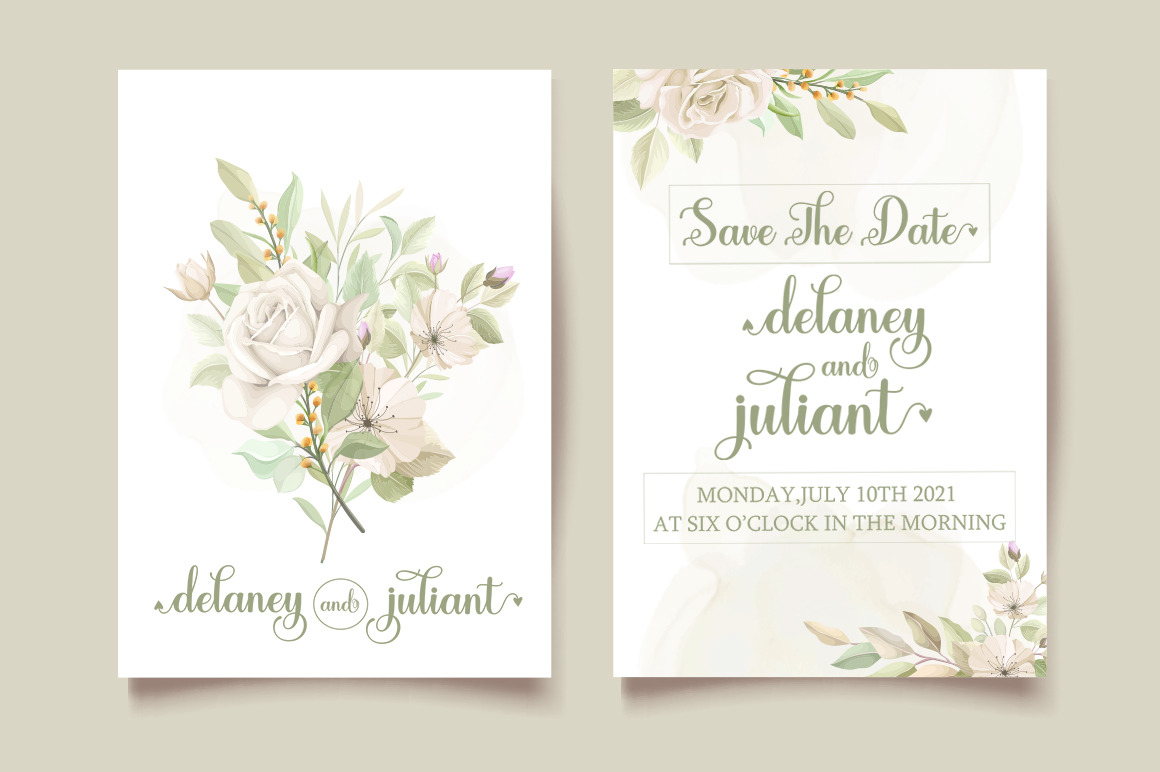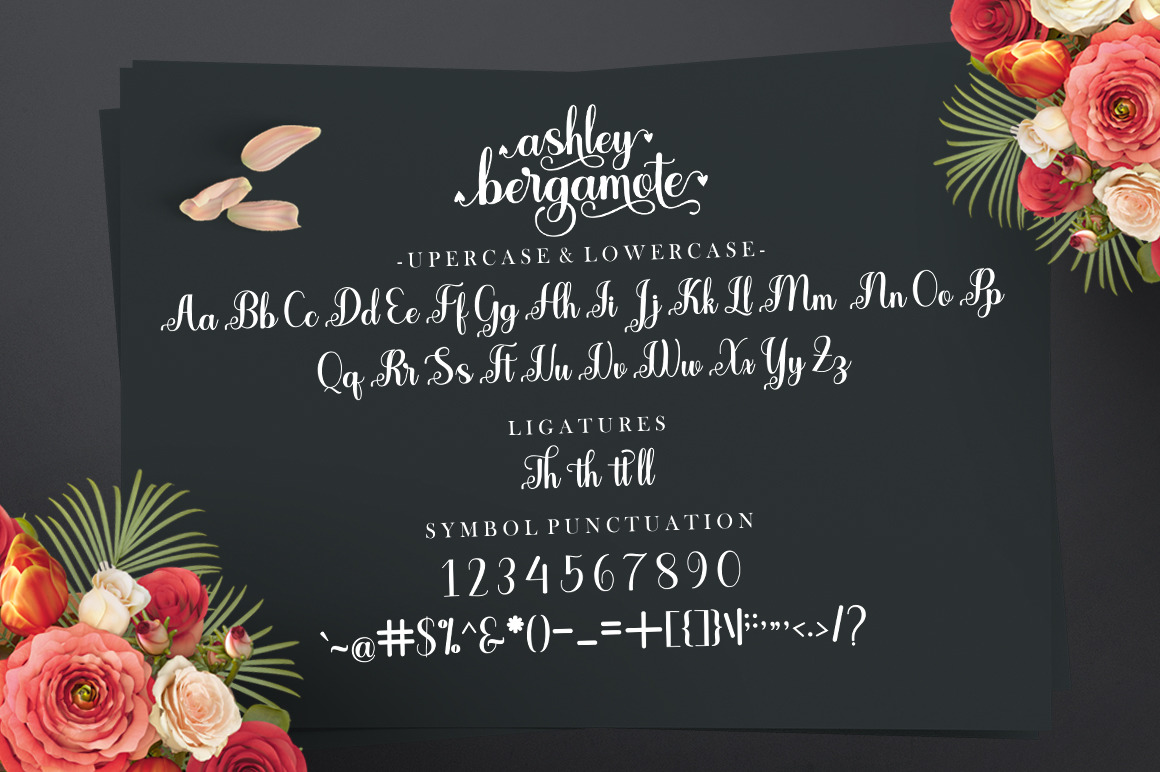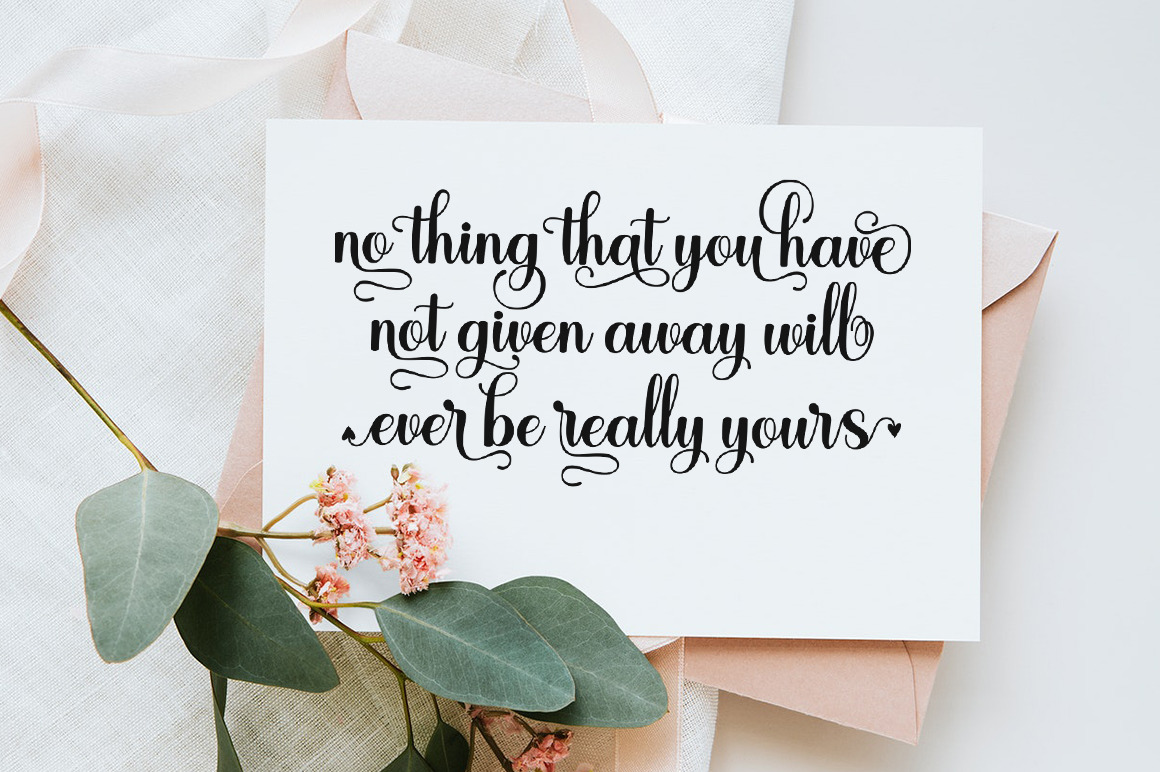
Ashley Bergamote Font
Ashley Bergamote is a superb handwritten font that will make your work stand out through its elegant and curvy lines. It is perfect for product packaging, branding project, magazine covers, social media, wedding, or just used to express words above the background. This font is PUA encoded which means you can access all of the glyphs and swashes with ease!